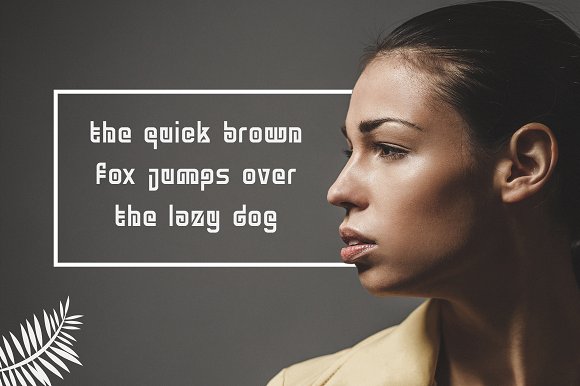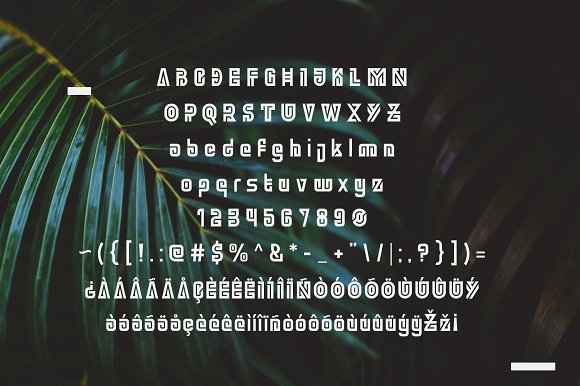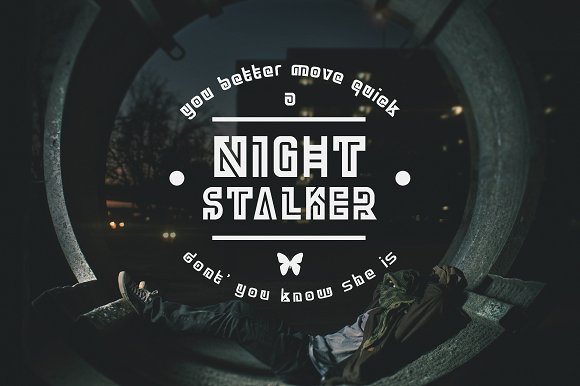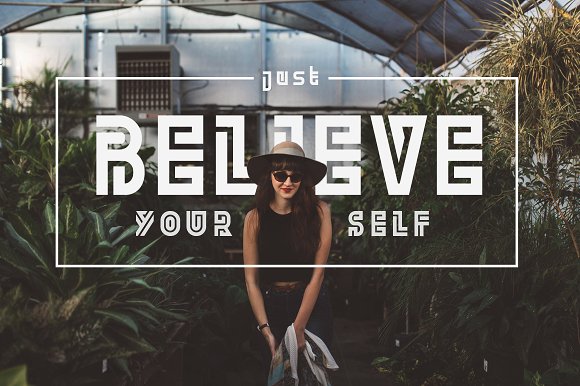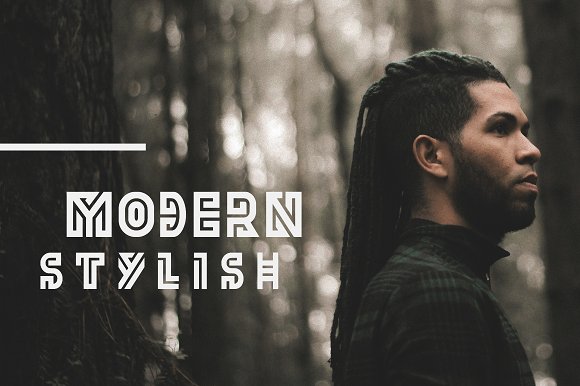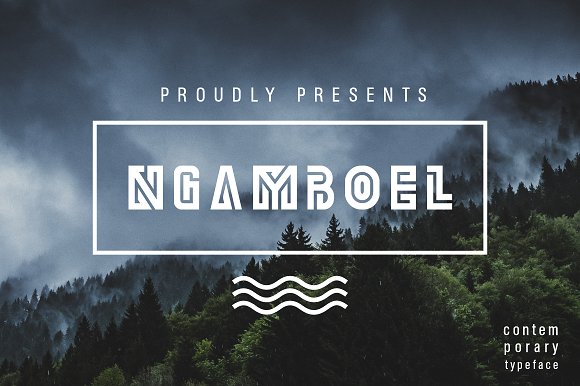
Ngamboel Display Font
Presenting Ngamboel Typeface, the contemporary typeface which inspired from traditional manuscript and techno style. designed with consistent precision and considering the characters for logotype usability that you can explore it with your creativity. Recommended for your headline that you can use for many design style, like pop, vintage, minimalist or glamour.